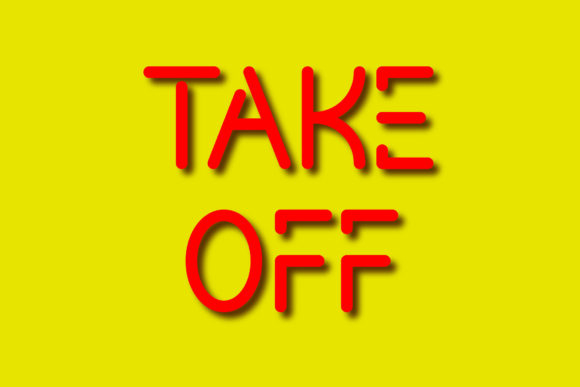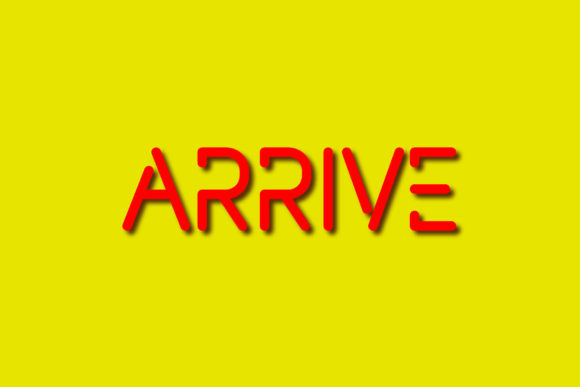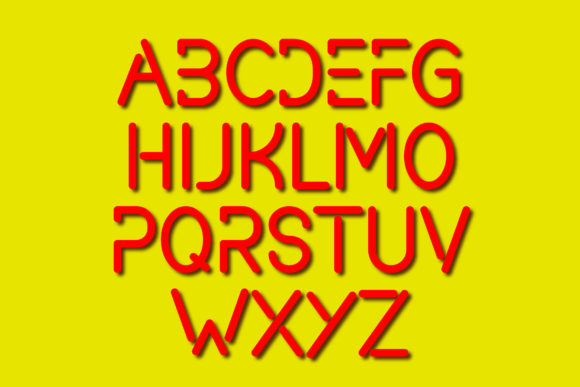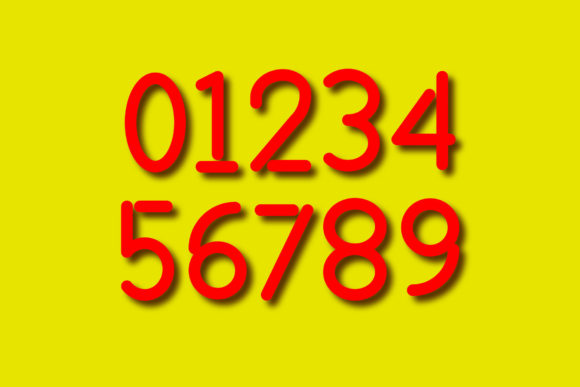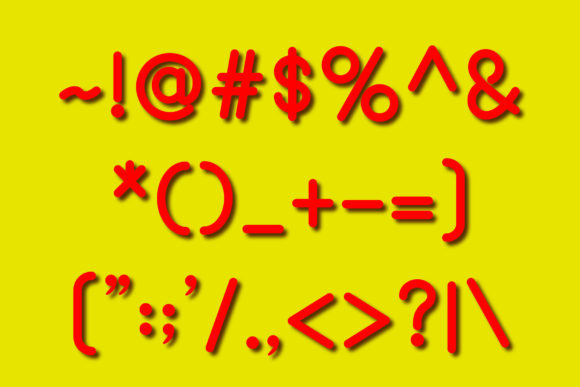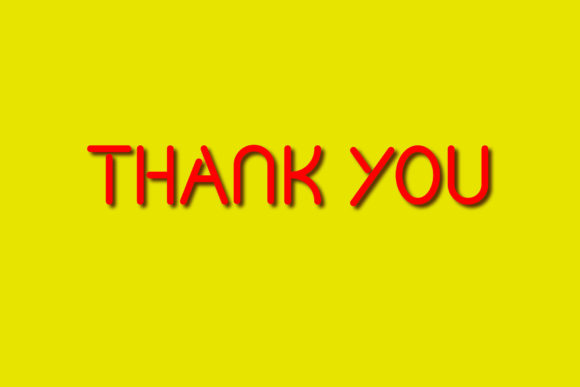
Introducing Departed Font: Elevate Your Designs with a Clean and Modern Aesthetic
In the realm of typography, fonts play a pivotal role in shaping the visual identity of a design. Whether it’s a logo, website, or marketing material, the right font can elevate your project from ordinary to extraordinary. If you’re on the hunt for a font that embodies a clean, modern, and techno-inspired vibe, look no further than Departed Font. This stunning display font is poised to revolutionize the way you approach design, offering a sleek and sophisticated aesthetic that’s perfect for designers and crafters alike.
What is Departed Font?
Departed Font is a meticulously crafted display font that boasts a minimalist and techno-styled appearance. Its clean lines, precise curves, and contemporary feel make it an ideal choice for a wide range of design applications. From web designs and logos to branding materials and more, Departed Font is versatile enough to enhance any project that requires a smart and cool touch.
Key Features of Departed Font
- Clean and Modern Aesthetic: Departed Font features a sleek and modern design that’s perfect for creating visually stunning projects.
- Minimalist and Techno-Styled: Its minimalist approach and techno-inspired elements give it a unique edge that’s sure to set your designs apart.
- High Versatility: Suitable for a variety of design applications, including web designs, logos, branding materials, and more.
- Ease of Use: Designed to be user-friendly, Departed Font can be easily integrated into your design workflow.
Benefits of Using Departed Font
Choosing Departed Font for your design projects comes with a multitude of benefits. Here are a few reasons why designers and crafters are gravitating towards this exceptional font:
- Enhances Visual Appeal: Departed Font’s modern and clean aesthetic instantly elevates the visual appeal of your designs.
- Conveys Sophistication: Its sleek lines and techno-inspired elements convey a sense of sophistication and professionalism.
- Improves Readability: Despite its stylized appearance, Departed Font maintains excellent readability, making it perfect for both headings and body text.
- Customizable: Experiment with different sizes, colors, and styles to tailor Departed Font to your design needs.
How to Use Departed Font in Your Designs
Integrating Departed Font into your design projects is straightforward. Here are some tips to get you started:
- Web Design: Use Departed Font as a headline font to grab attention and create a lasting impression.
- Logo Design: Incorporate Departed Font into your logo design to convey modernity and sophistication.
- Branding Materials: Consistency is key in branding; use Departed Font across your marketing materials to establish a cohesive visual identity.
Departed Font is more than just a font; it’s a design statement. Its clean, modern, and techno-inspired aesthetic makes it a valuable addition to any designer’s toolkit. Whether you’re looking to elevate your web designs, create a memorable logo, or simply add a touch of sophistication to your projects, Departed Font is the perfect choice. With its versatility, readability, and undeniable charm, Departed Font is poised to become your go-to font for all your design needs.